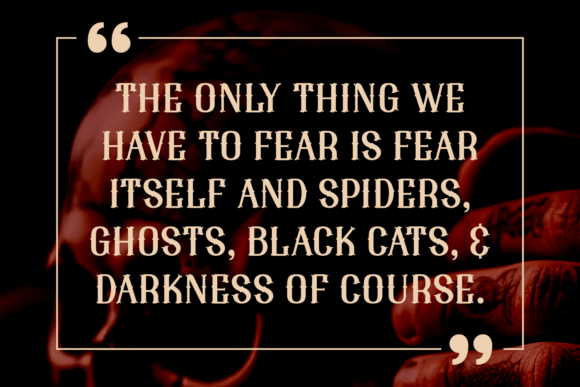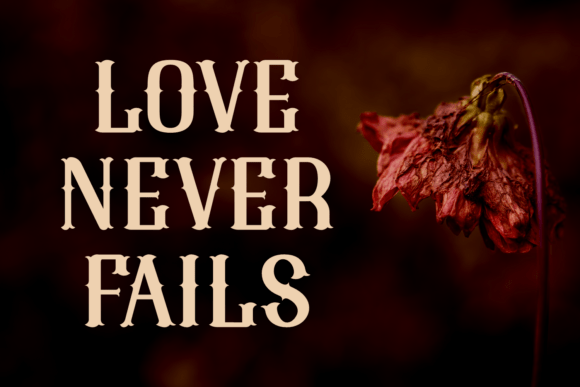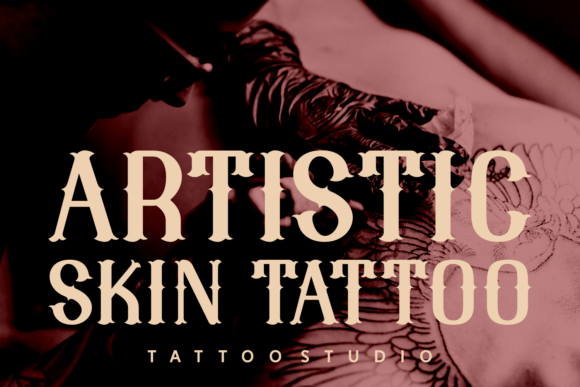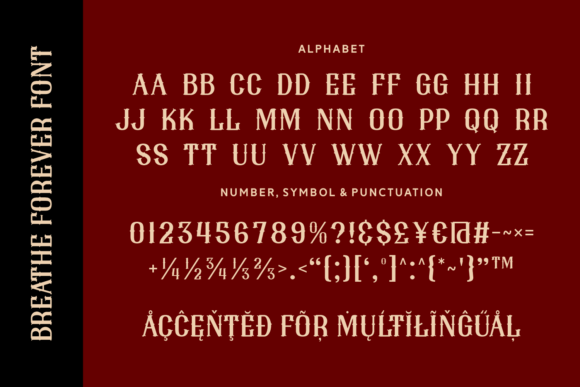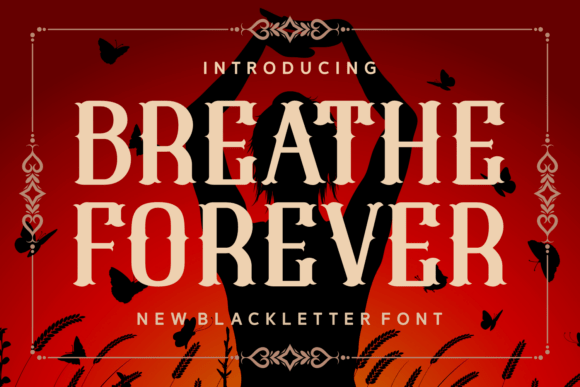
Unleashing the Power of Typography: Breathe Forever Font
Imagine you’re standing in a dimly lit, ancient library, surrounded by the musty scent of old books and the soft glow of candles. As you wander through the shelves, your eyes land on a beautifully crafted poster, its intricate details and elegant typography drawing you in. This is the kind of creative moment that sparks the imagination, and for designers, finding the perfect font to evoke that same sense of wonder and awe is a constant quest.
Enter the Breathe Forever Font, a stunning blackletter-inspired serif font that seamlessly blends Gothic details with a modern vertical structure. This elegant font is perfect for designers seeking to add sophistication and strength to their typographic compositions, making it an invaluable addition to any design toolkit.
With its sharp serifs, high contrast, and ornamental cuts, the Breathe Forever Font is ideal for luxury branding, editorial design, and themed artwork where historical elegance meets contemporary visual style.
- Font Family: Breathe Forever is a unique, custom-designed font with a mix of modern and elegant elements.
- Unique Characteristics: Breathe Forever features a distinctive, flowing design with intricate details, making it perfect for branding, invitations, and other creative projects.
Breathe Forever Font Review
Overall, I was quite excited to dive into the Breathe Forever font, but my experience was a mix of highs and lows. Let’s start with the good stuff! ✨
- The Breathe Forever font has a unique, elegant touch to it. I love how it adds a sense of sophistication to any design project.
- It’s highly legible, even at smaller font sizes, making it perfect for body text or titles.
- The font is incredibly versatile, suitable for a wide range of designs, from modern websites to elegant book covers.
However, there are some limitations I’d like to point out. ⚠️
- The font lacks a bold weight, which can make it harder to use in certain situations where a bold font is necessary.
- The italic version of the font could be improved, as it looks a bit inconsistent with the regular version.
- The font family is not as extensive as some other popular fonts, which might be a drawback for designers who like to have a wide range of options.
Overall, the Breathe Forever font is a solid choice for designers looking for a elegant, sophisticated font. While it has its limitations, it’s still a great addition to any design toolbox.
The Breathe Forever Font is ideal for:
• Wedding invitations and stationery
• Baby shower invitations and decorations
• Birthday party invitations and decorations
• Event branding and marketing materials